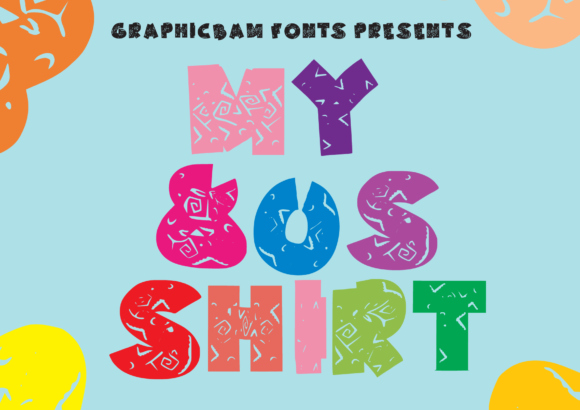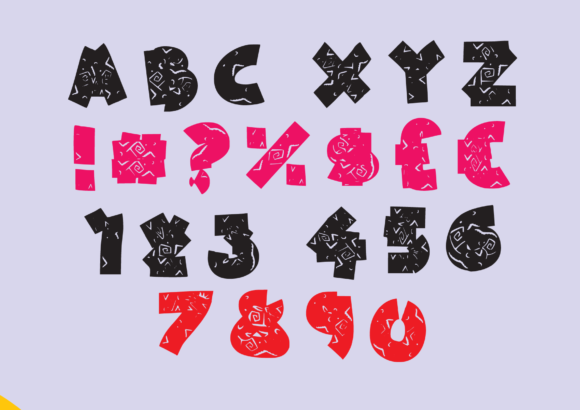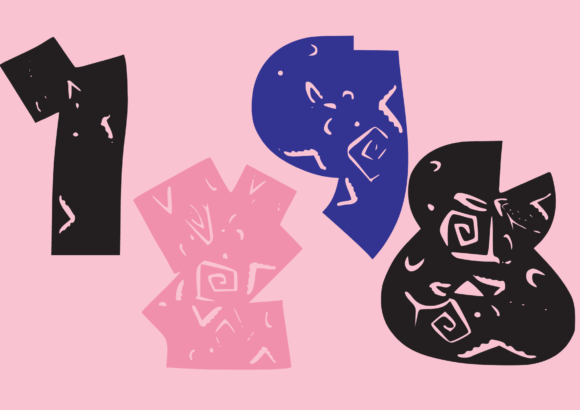
My 80’s Shirt Font
About the My 80’s Shirt Font
Meet My 80’s Shirt Font, a stunning font that brings a touch of elegance and professionalism to any design. My 80s Shirt is a fat and funky looking display font, sending out an 80’s fashion vibe. Go back in time and add a playful retro touch to your designs with this unique font!
Its bold, playful strokes make it ideal for headlines, posters, and short impactful branding elements where a retro aesthetic is desired. It shines in projects evoking nostalgia or celebrating 80s culture, such as vintage clothing brands or themed events. Avoid using it for body text or UI elements; its chunky forms are not legible at smaller sizes.
Pairing it with a clean sans-serif like Helvetica Neue for contrast or a more geometric font like Futura adds a modern edge to its retro vibe. A subtle script font could also work well for secondary text elements, providing a balance to its playful energy.
My 80’s Shirt Font’s core personality is undeniably fun and energetic, but maintains a level of sophistication thanks to its structured letterforms. This makes it suitable for brands that wish to project a playful yet confident image.
My 80’s Shirt Font Usage Examples
My 80's Shirt Font Example